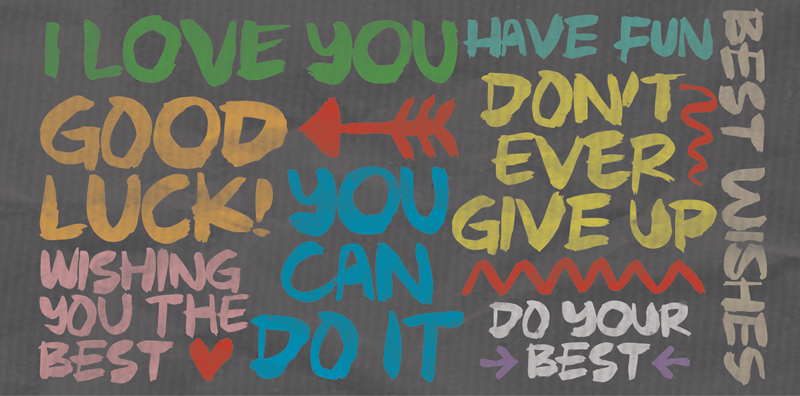
Murky Buzz is wild and unpredictable! Actually it is so wild that it has got 6 different versions of each letter - enough difference to make that café sign or headline look authentic! The OpenType contextual alternates cycles while you type! It is AWESOME stuff! Speaking about stuff - Murky Buzz comes along with a good handful of ornaments to compliment the rugged brush look of the letters! Download the FULL version here: http://www.myfonts.com/fonts/pizzadude/murky-buzz/ |